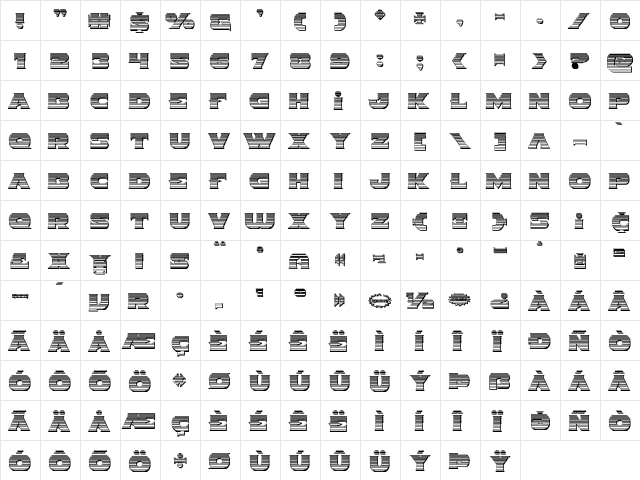
Indigo Demon Chrome Regular
Design Context for Indigo Demon Chrome Typeface
Indigo Demon Chrome is a composed and adaptable typeface that performs quietly and consistently across a wide range of design contexts.
Pro Tip: Use Indigo Demon Chrome in both headline and body roles to test its range before committing to a single application.